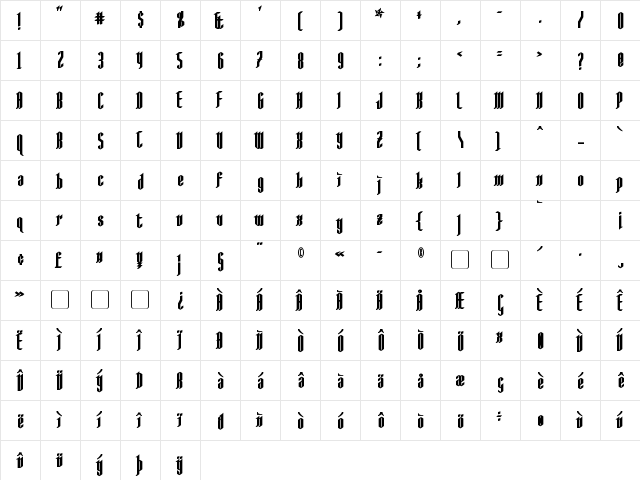
AngloYsgarth Bold
| Designer | Neale Davidson |
Design Context for AngloYsgarth Typeface
AngloYsgarth is a composed and adaptable typeface that performs quietly and consistently across a wide range of design contexts. Its bold stroke weight gives it real presence on the page.